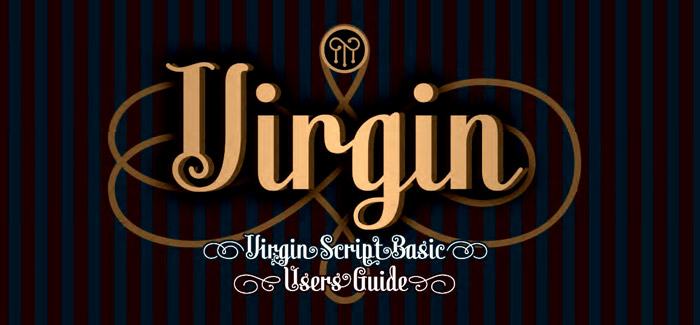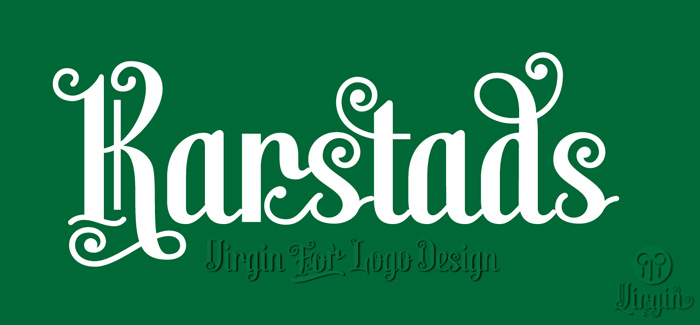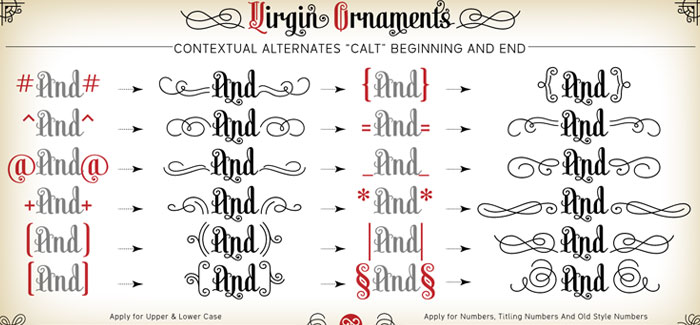
Virgin font
Virgin font is a hybrid typeface with a Victorian spirit, based on script forms of Romanesque ornamentation. With his rich variety of stylistic forms, ornaments and catchwords, Virgin is a chance to create completely new texts, varied and elegant. About 1100 Glyphs allow users to create words out standard, thanks to its Opentype programming in countless combination of alternates. The variety of styles makes it easy to create texts according to your taste and use because Virgin offer an unlimited combinations of stylistics alternates. Virgin is ideal for humanistic texts, tourist ads, liquor and wine labels, fashion and even for cosmetic purposes. Virgin is presented in solid and inline version, and a basic version for web in lighter weight, also providing a refined collection or ornaments and catch Words. Virgin has been specially designed for logotype, packaging & publishing design project. Virgin evokes the richness of nature in its biodiversity.